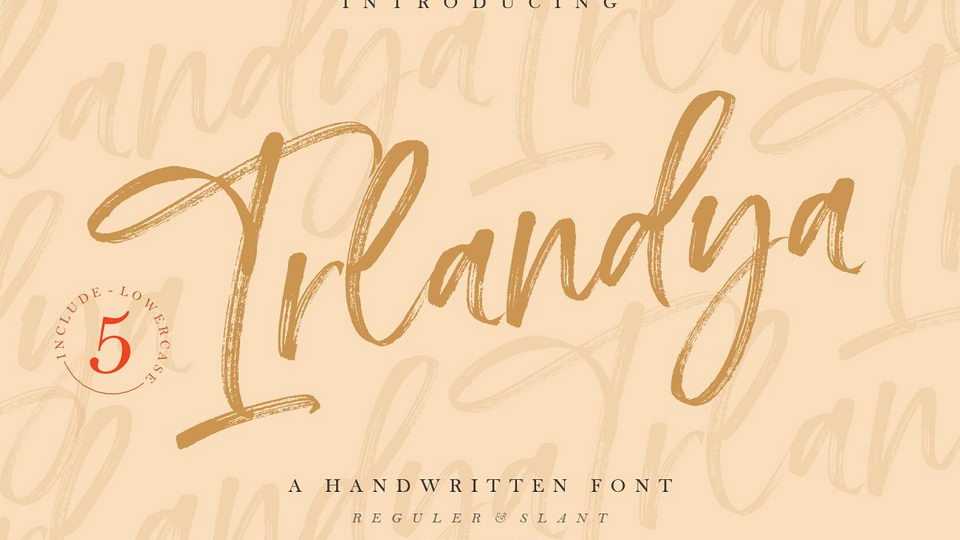
Download Irlandya font, a handwritten typeface with a strong texture character and a modern style. Irlandya made by handwriting directly on paper with a coarse type brush, to produce a strong and consistent texture.
Designer: Geranium Space